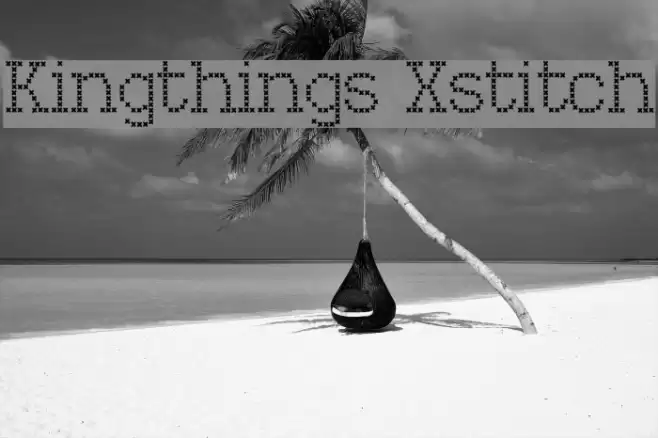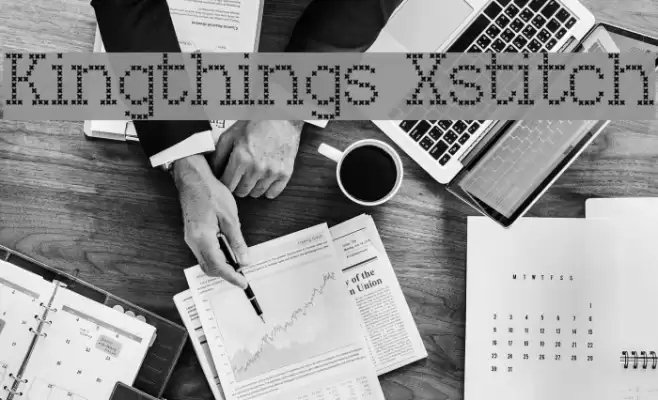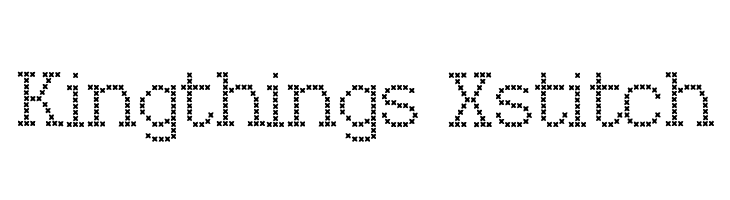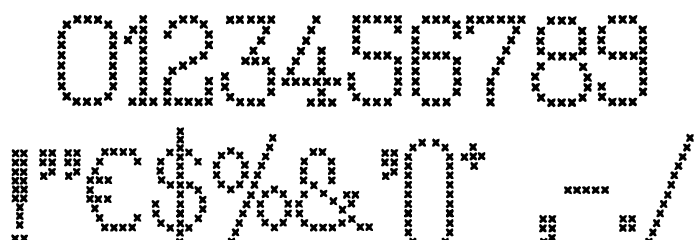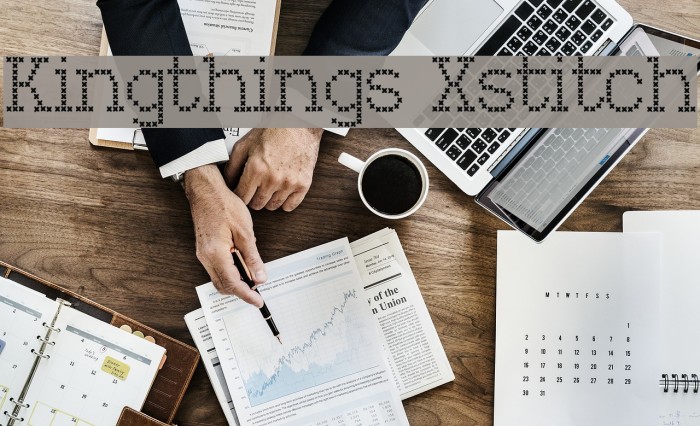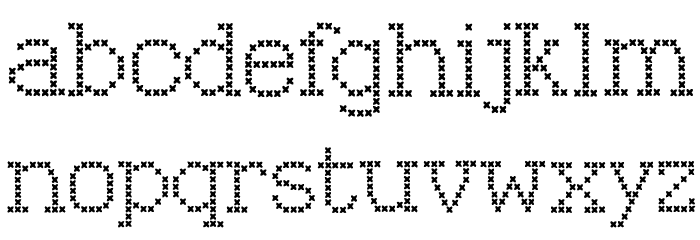
Kingthings Xstitch Font
Kingthings Xstitch Description
This font is characterized by its unique cross-stitch pattern, giving it a handcrafted and decorative appearance. Each character is constructed with a series of small 'x' shapes, mimicking the look of traditional embroidery. The uppercase and lowercase letters maintain a consistent style, with rounded edges and a uniform height that enhances readability. Numbers and special characters follow the same design principle, ensuring a cohesive look across all elements. The font's distinct style makes it ideal for projects that require a touch of nostalgia or a crafty aesthetic.
A decorative font with a cross-stitch pattern, resembling traditional embroidery from Uncategorized fonts.
- Proposed Projects: Ideal for craft-themed projects, embroidery patterns, DIY guides, or vintage-inspired designs.
- Use Case: Headlines, Logos, Craft projects